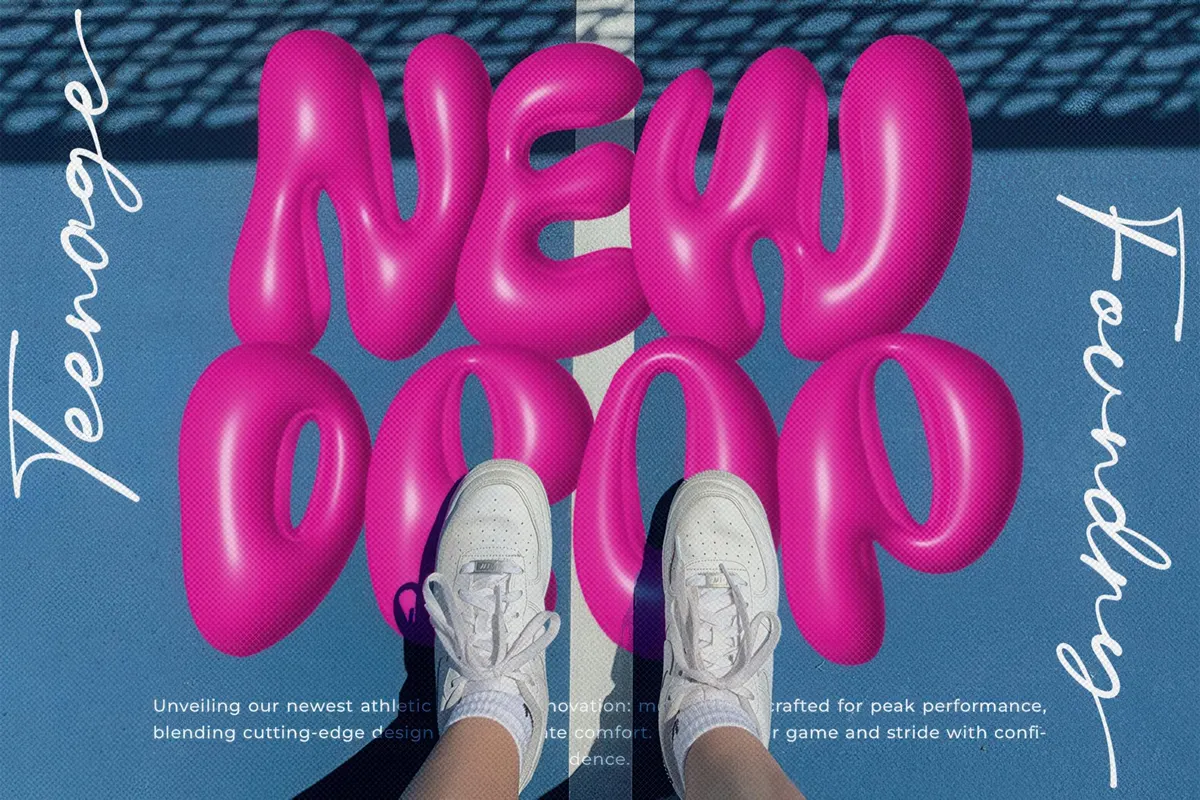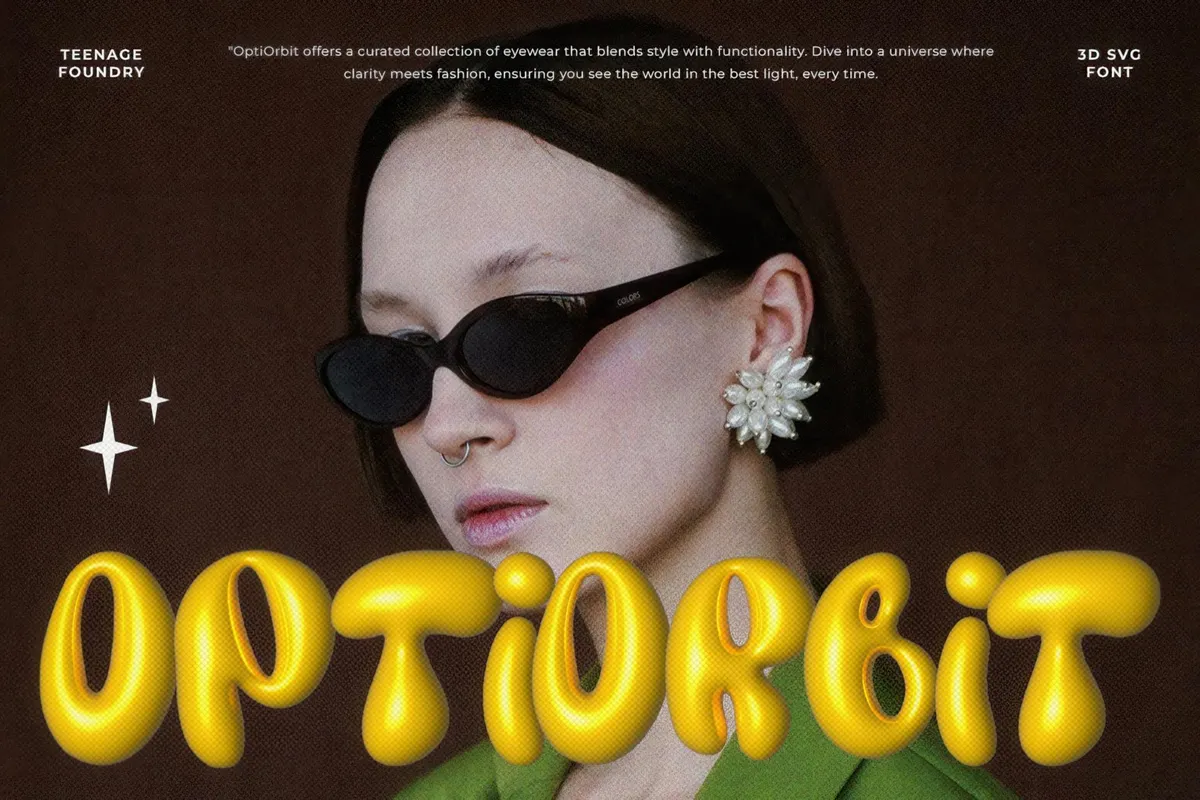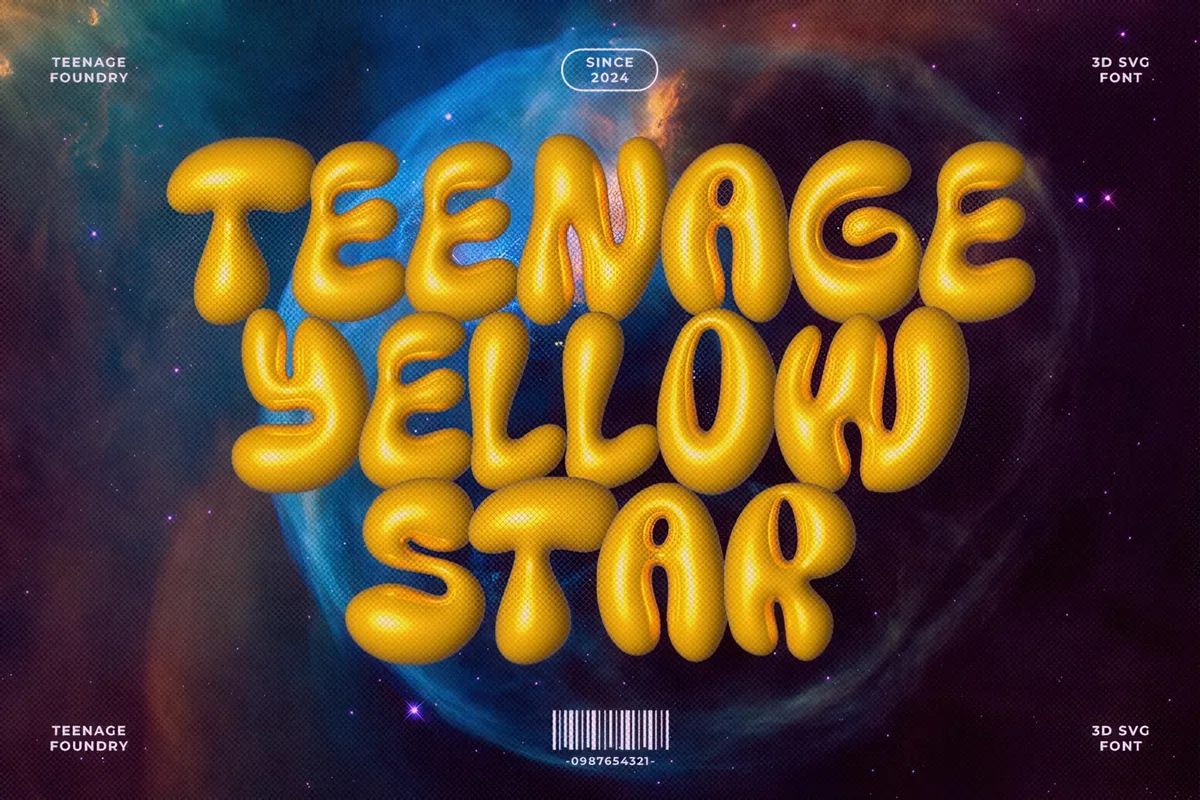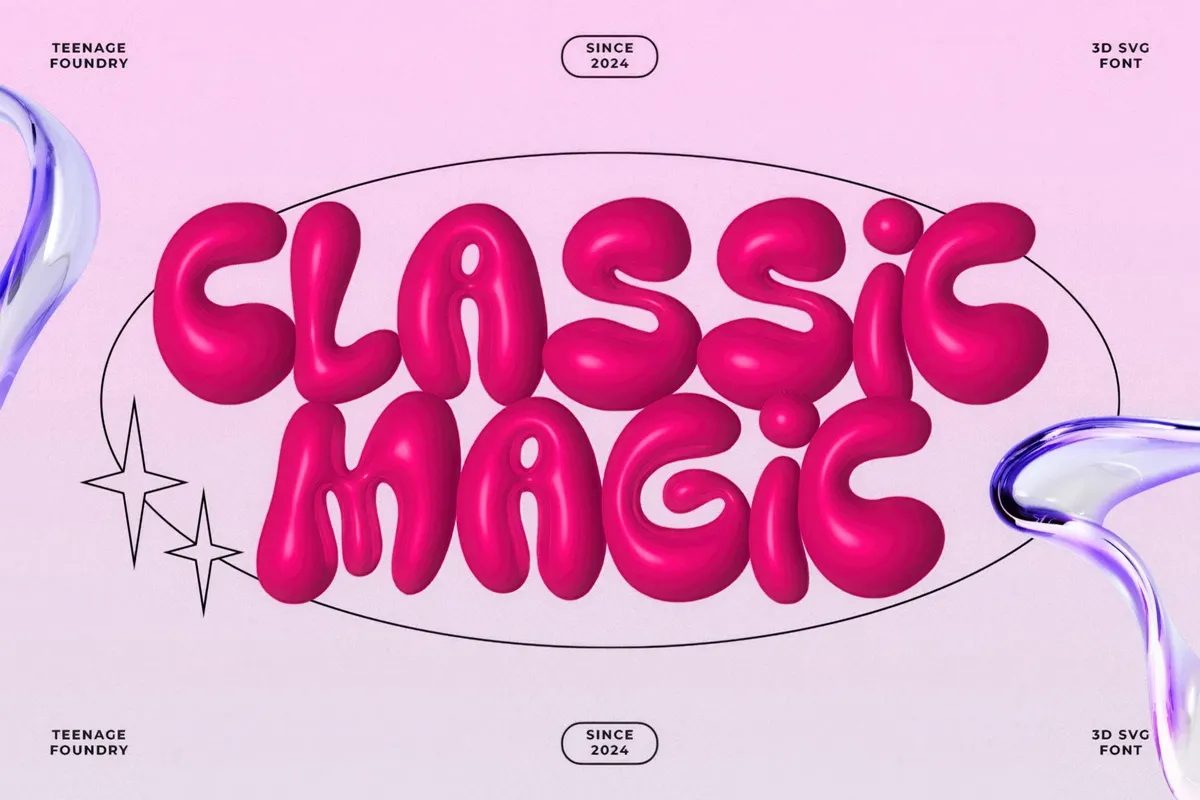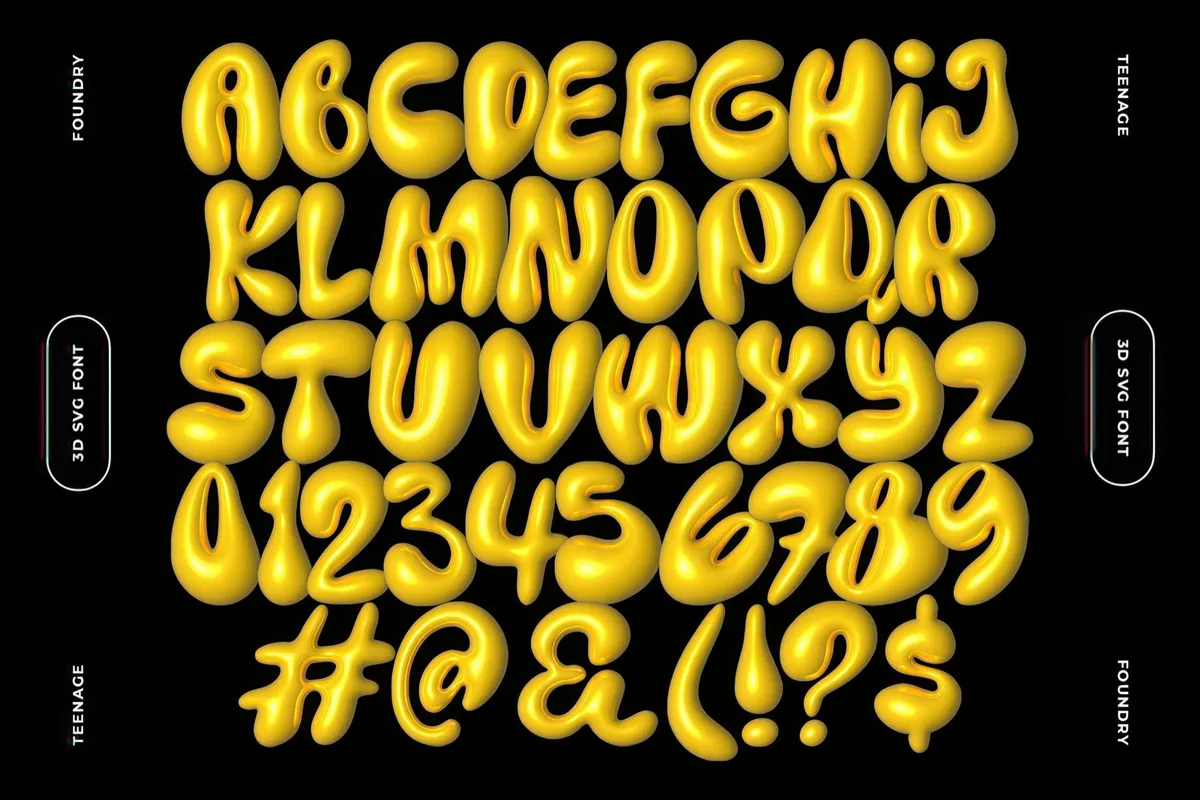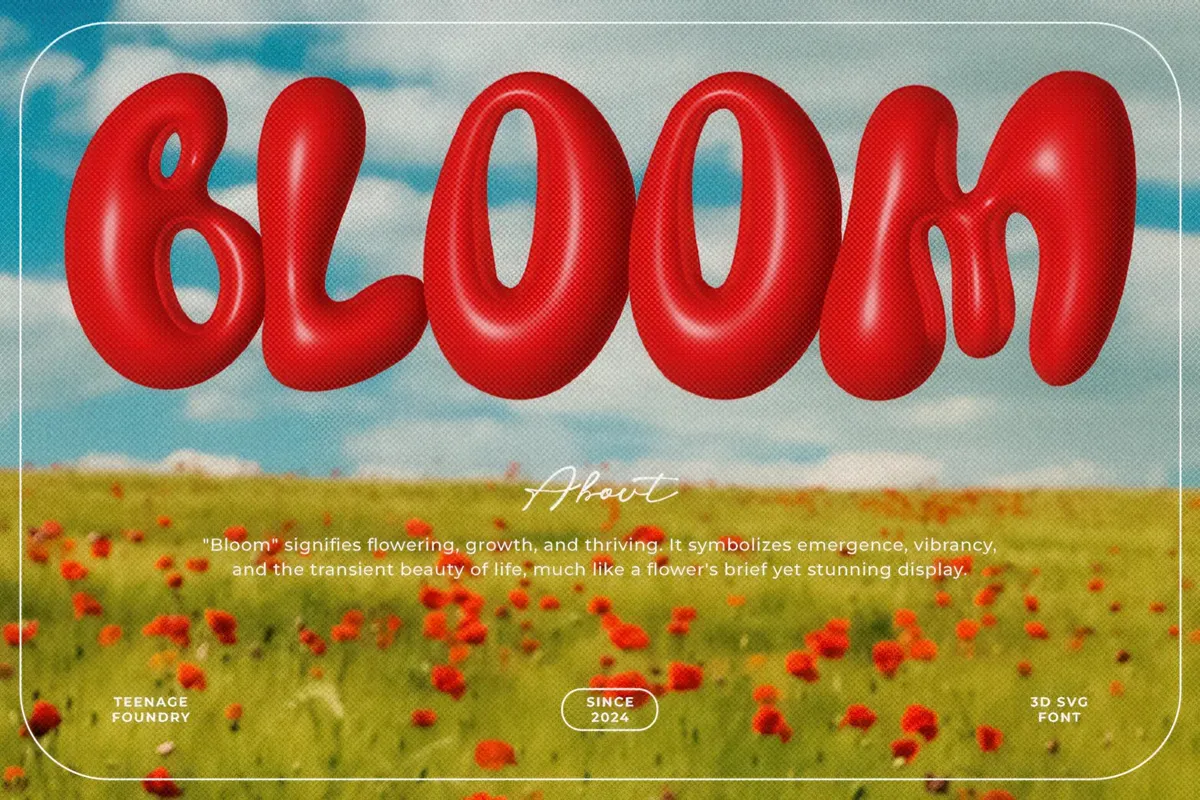
Teenage Yellow Star — 3D SVG Font
The book says that the cover of The Hitchhiker’s Guide to the Galaxy has “DON’T PANIC” printed in large, friendly letters. We bet they were talking about Teenage Yellow Star font, as we just could not come up with something more friendly.
This 3D SVGfont is a warm handshake from another dimension, with its bold, playful letters sending friendly vibes. It features uppercase, lowercase, numerals, punctuation, and even multilingual support (because universal appeal is kind of its thing). Need it in a different shade? No problem. With Adobe's Hue/Saturation tools you can make Teenage Yellow Star as radiant or moody as your project requires: whether it's posters, social media posts, or logos.